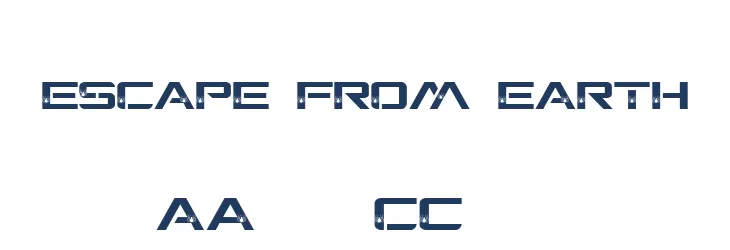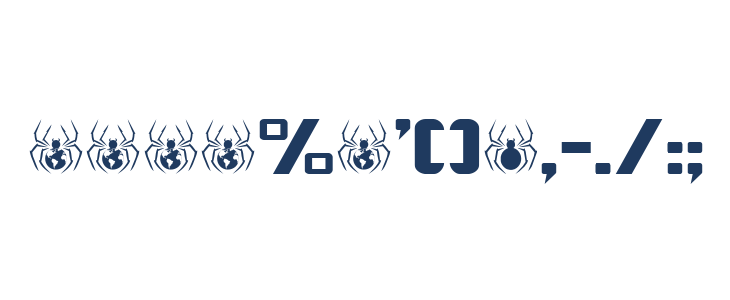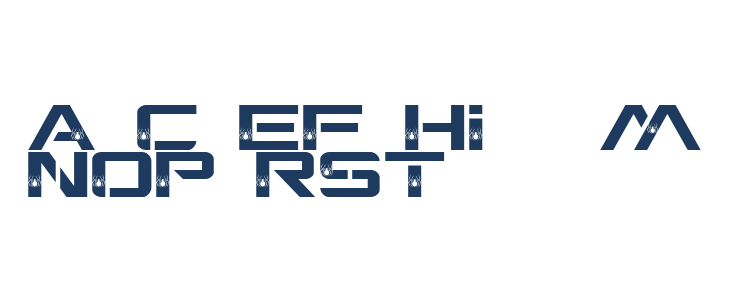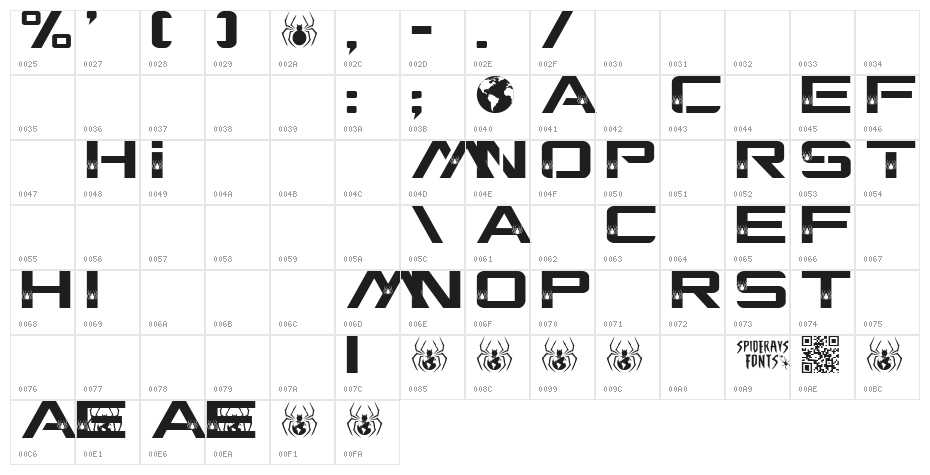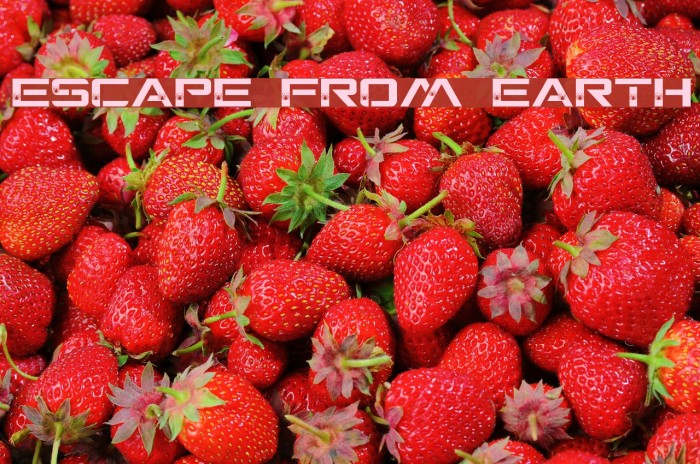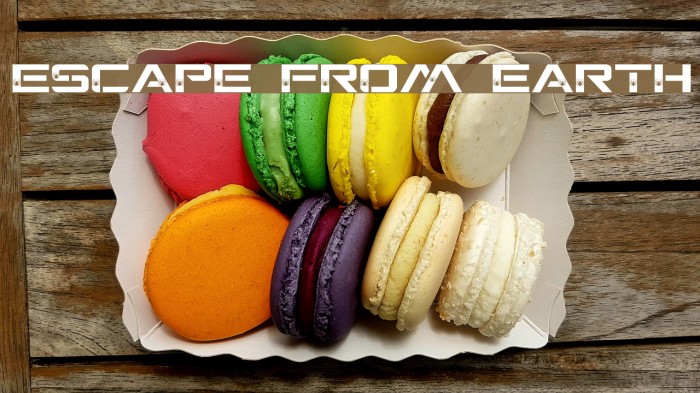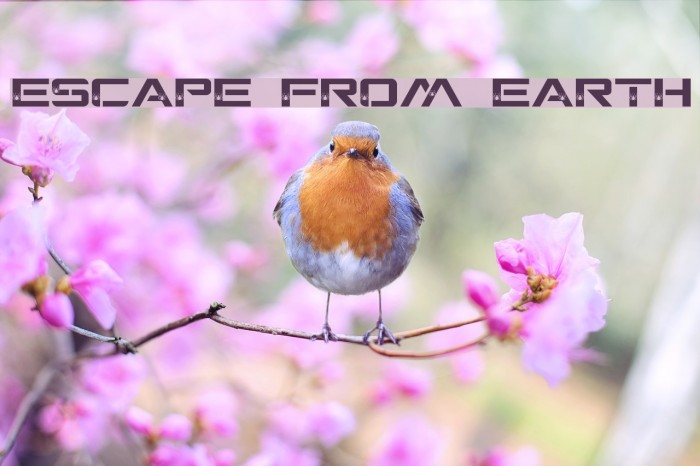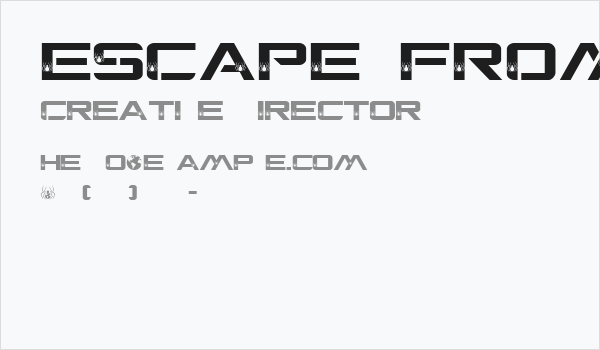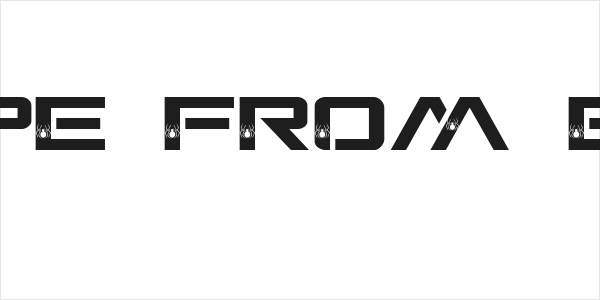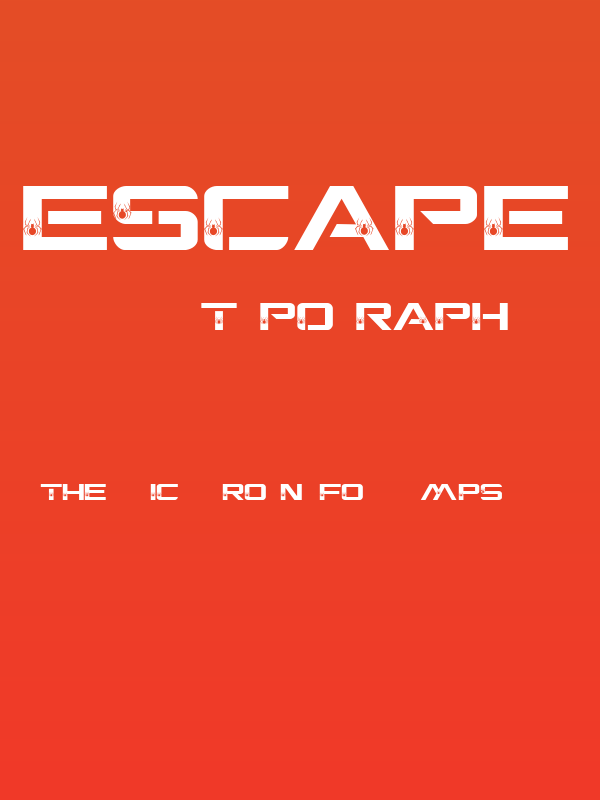
ESCAPE FROM EARTH Font
ESCAPE FROM EARTH Description
This font features a bold, futuristic design with a unique, decorative style. Each character is constructed with sharp, angular lines and incorporates small, intricate details that resemble mechanical or technological elements. The font's geometric structure gives it a modern and edgy appearance, making it stand out in any design. The uppercase letters are particularly striking, with consistent height and width, while the special characters add a playful yet sophisticated touch. The font's overall aesthetic is reminiscent of science fiction themes, making it suitable for projects that require a bold and innovative look.
ESCAPE FROM EARTH
Overall StyleFuturistic, Decorative
Proposed ProjectsIdeal for sci-fi movie posters, video game titles, tech branding, and futuristic event flyers.